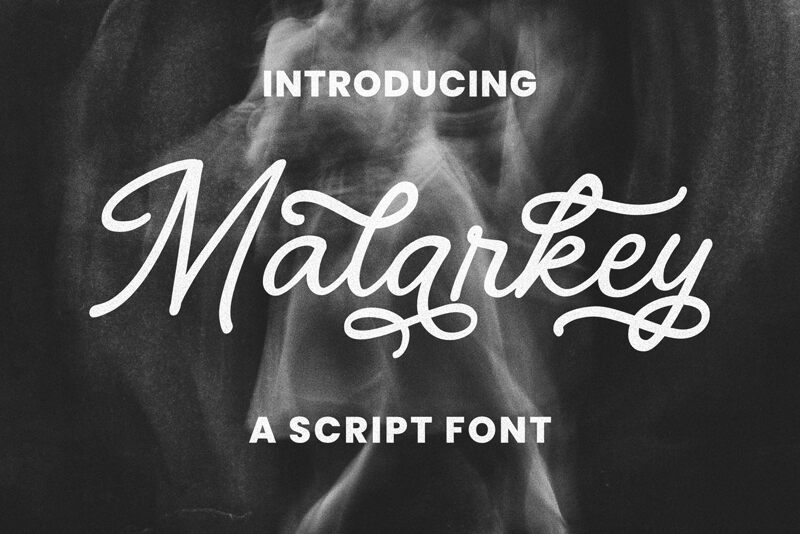
Malarkey Regular
Malarkey, a creation by Niskala Huruf, brings the charm of handwritten notes to digital design. Its fluid strokes and casual elegance capture the spontaneity of ink on paper, evoking a sense of personal touch and warmth. Each letter flows into the next with an effortless grace, making Malarkey feel intimate and inviting.
This font's playful yet readable style makes it a versatile choice for various applications. Ideal for personalized branding, expressive invitations, or any project that benefits from a touch of handcrafted flair, Malarkey ensures your message is delivered with both authenticity and style.